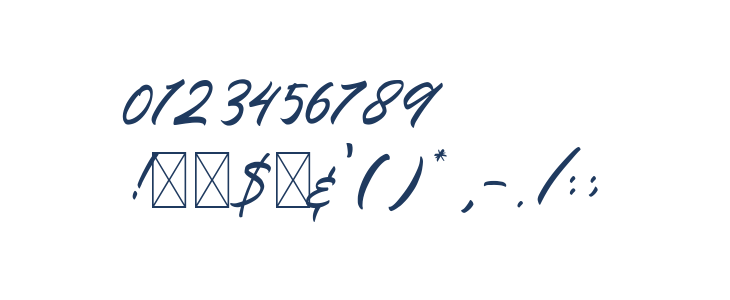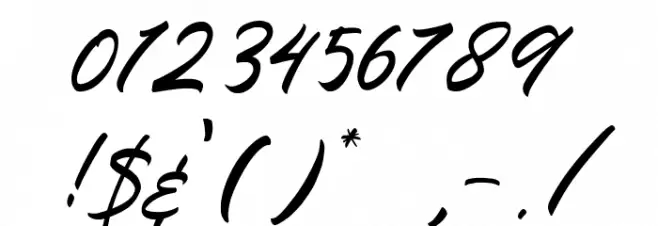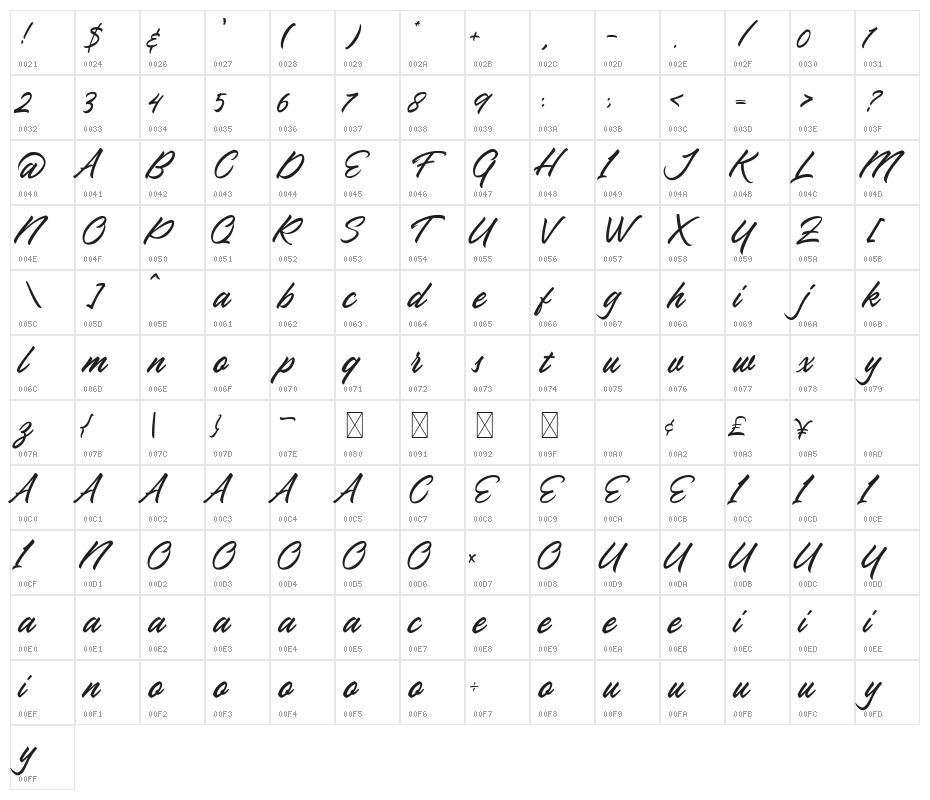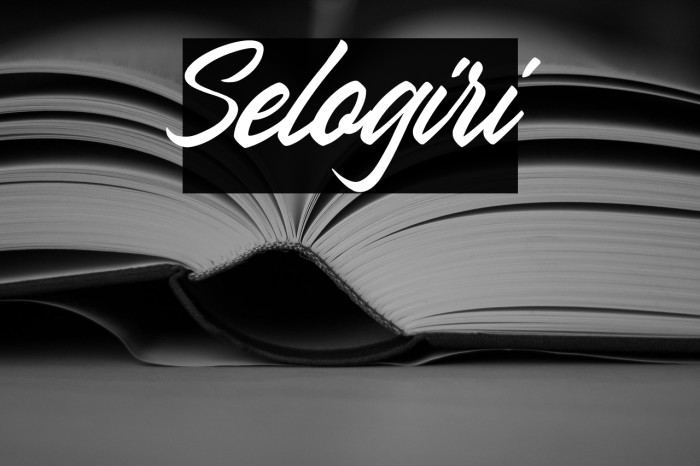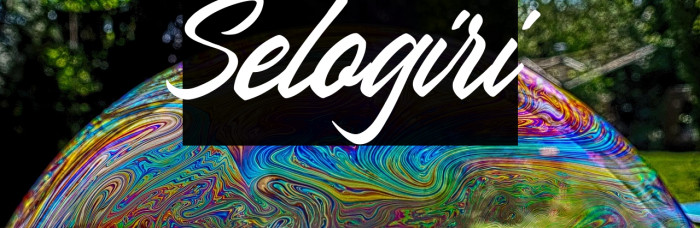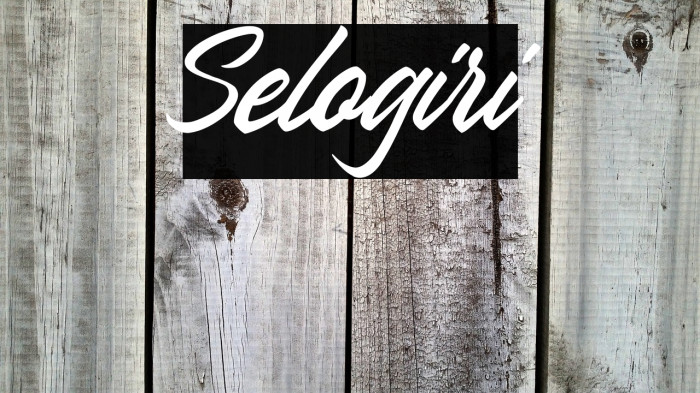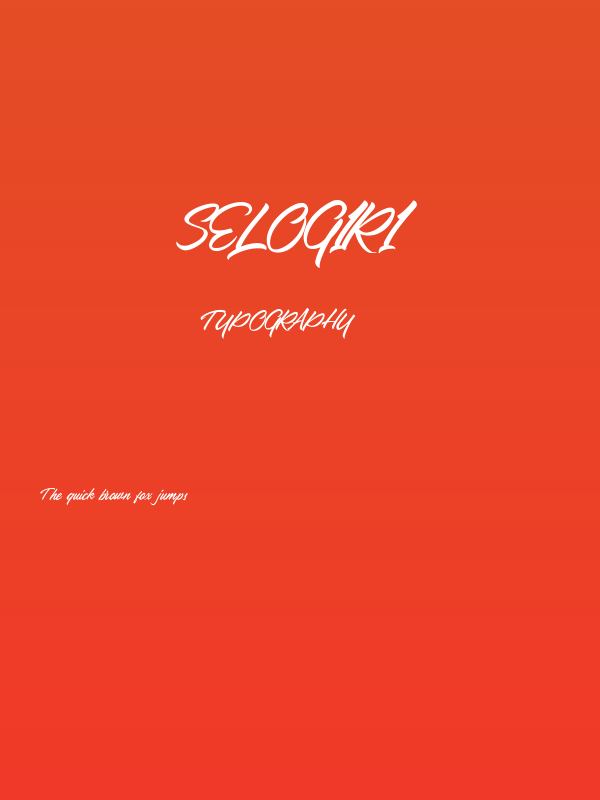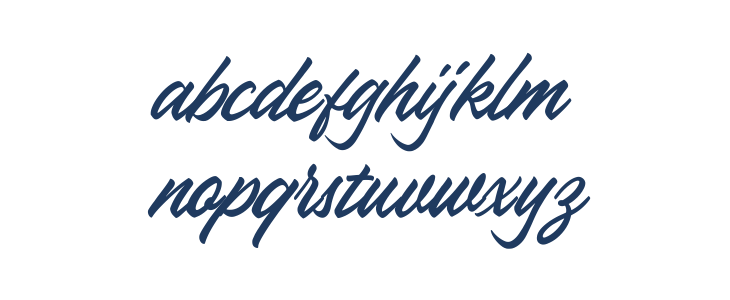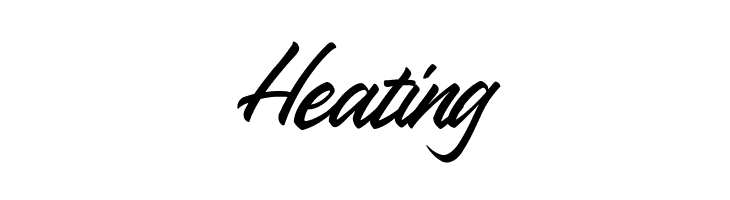
Selogiri Font
Selogiri Description
This font exudes a dynamic and energetic feel with its cursive, handwritten style. The letters are elegantly slanted, giving a sense of motion and fluidity. The strokes are bold and confident, with a consistent thickness that maintains readability while adding a touch of flair. The uppercase letters are particularly striking, with sweeping curves and loops that enhance the font's expressive nature. The lowercase letters complement this with a more subtle, yet equally stylish appearance. Numbers and special characters are crafted with the same attention to detail, ensuring a cohesive look across all elements.